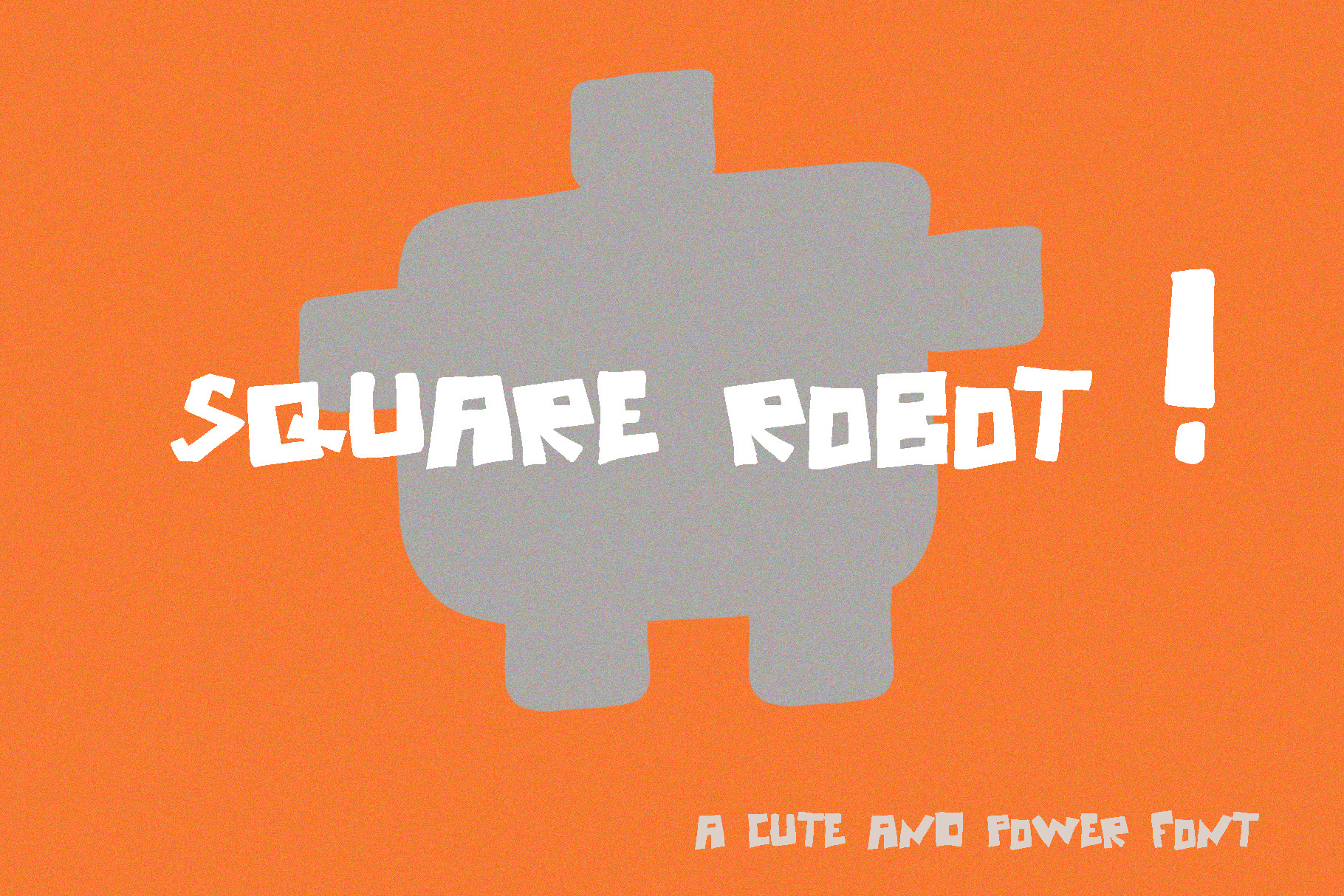
Square robot font
Square robot font for your pleasure! A great thick font that will make your work and message pop! More special characters added as well as web fonts. Comes in